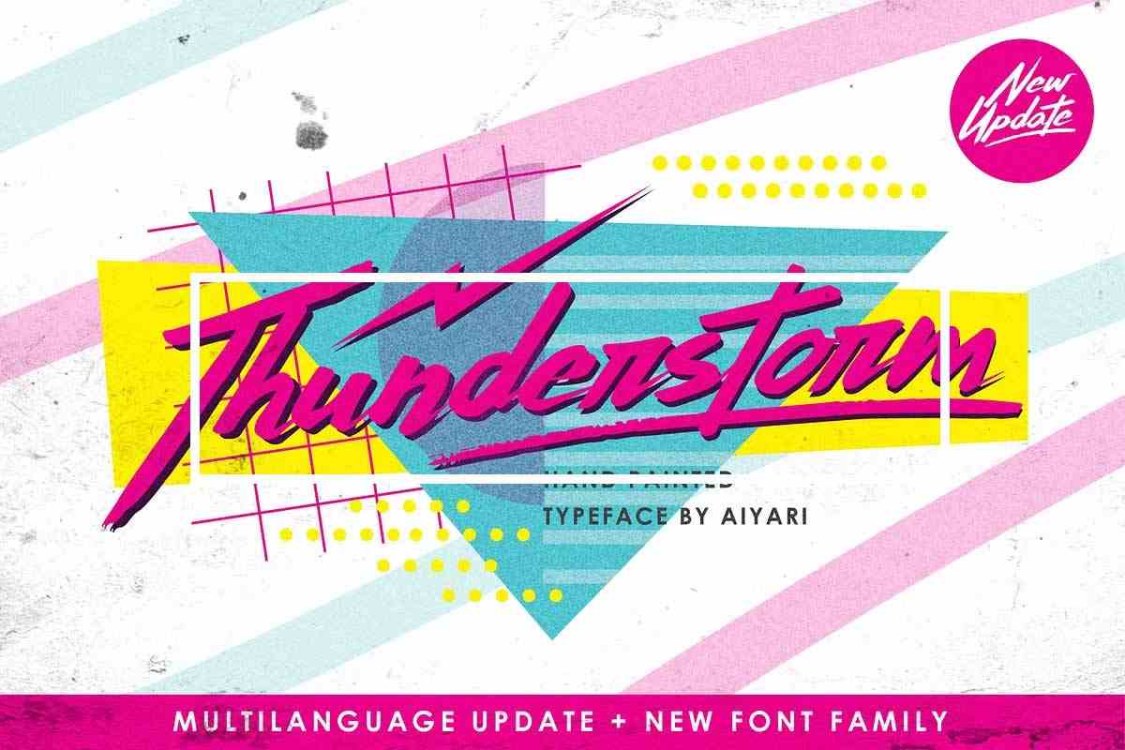
Thunderstorm Font
Introducing Thunderstorm font. A hand-made brush typeface inspired by 80s-90s music, retro, disco, grunge, and pop culture. Uses for poster, logo, clothing, books, invitation, etc.
Thunderstorm Font is a Brush Fonts font that brings a professional and versatile look to your projects. Introducing Thunderstorm font.